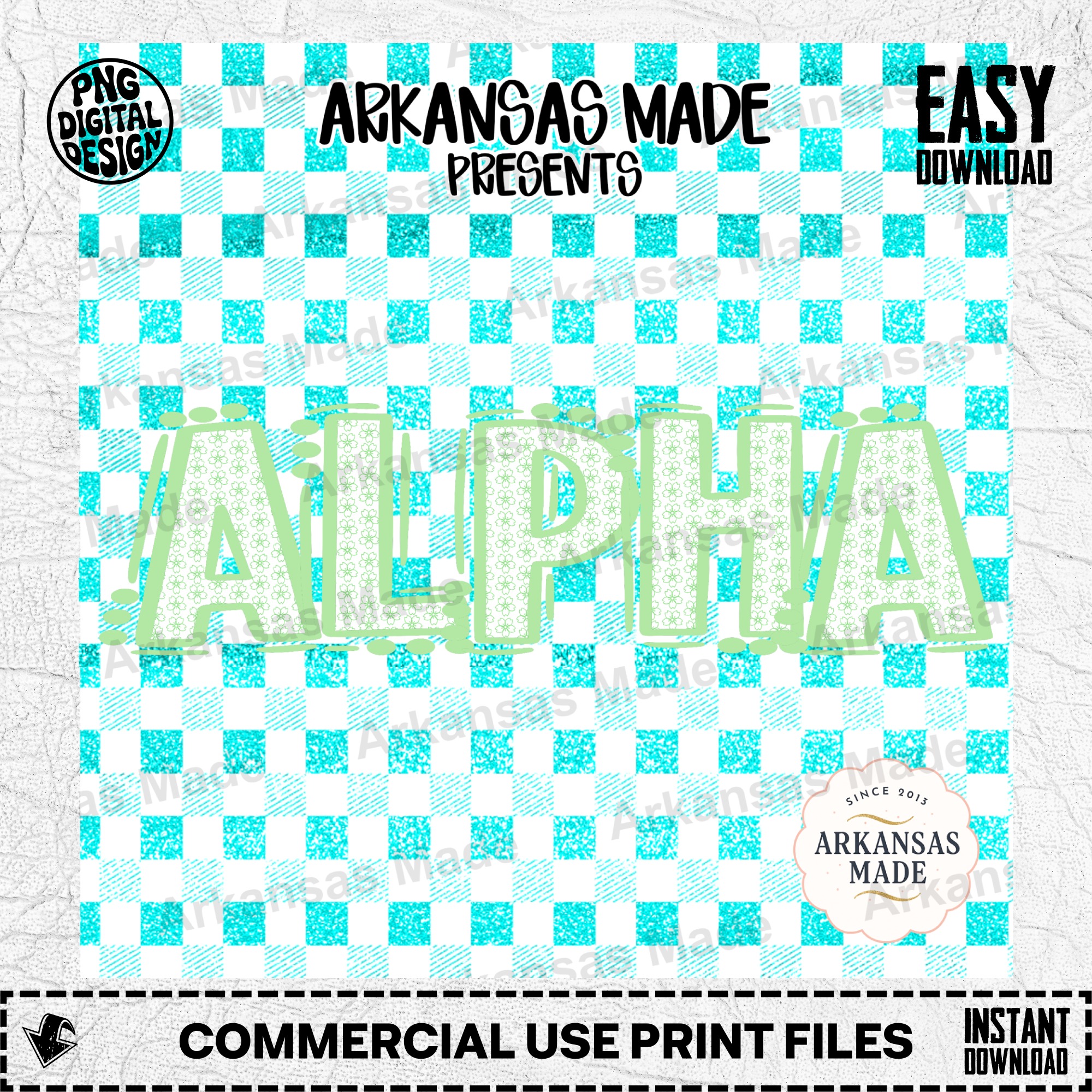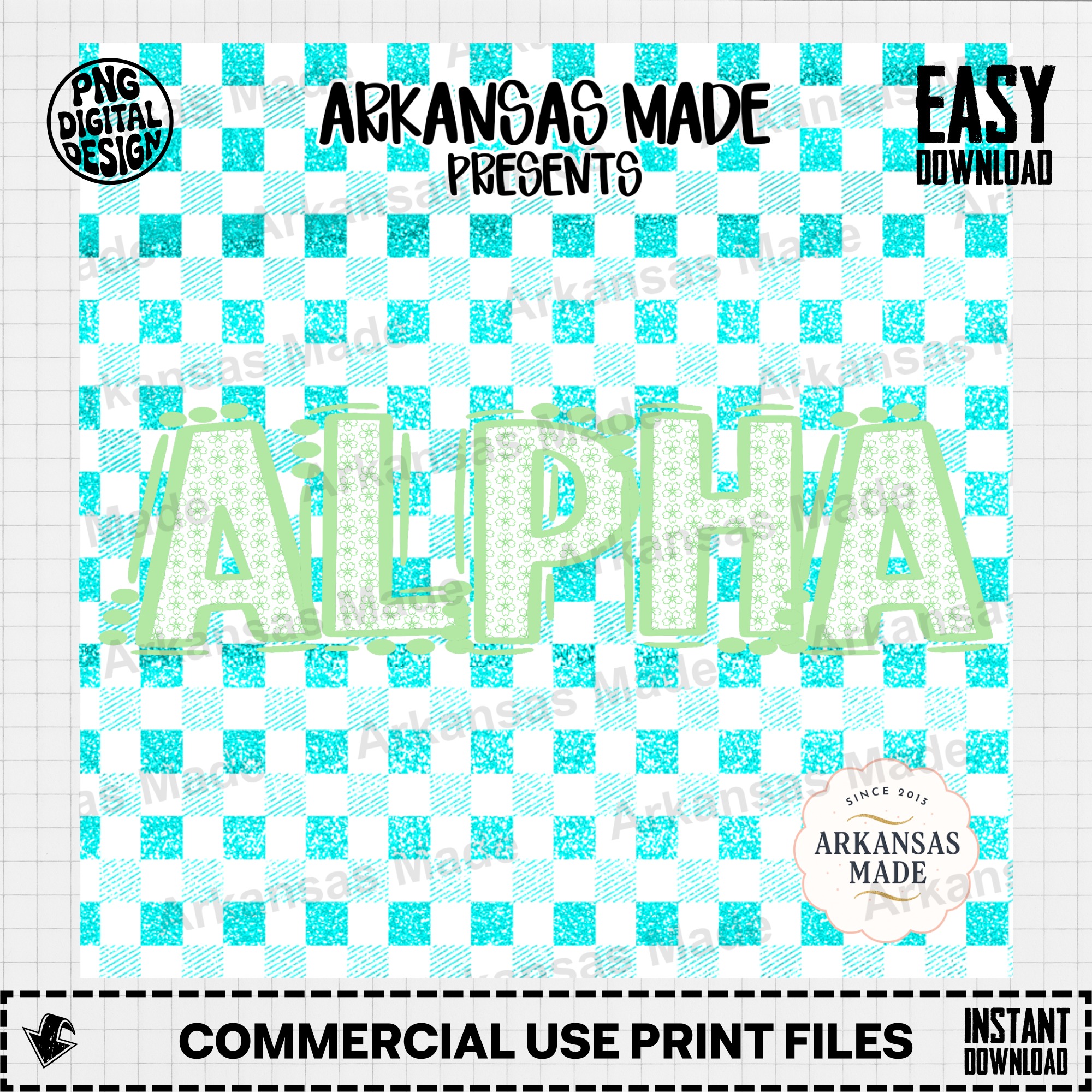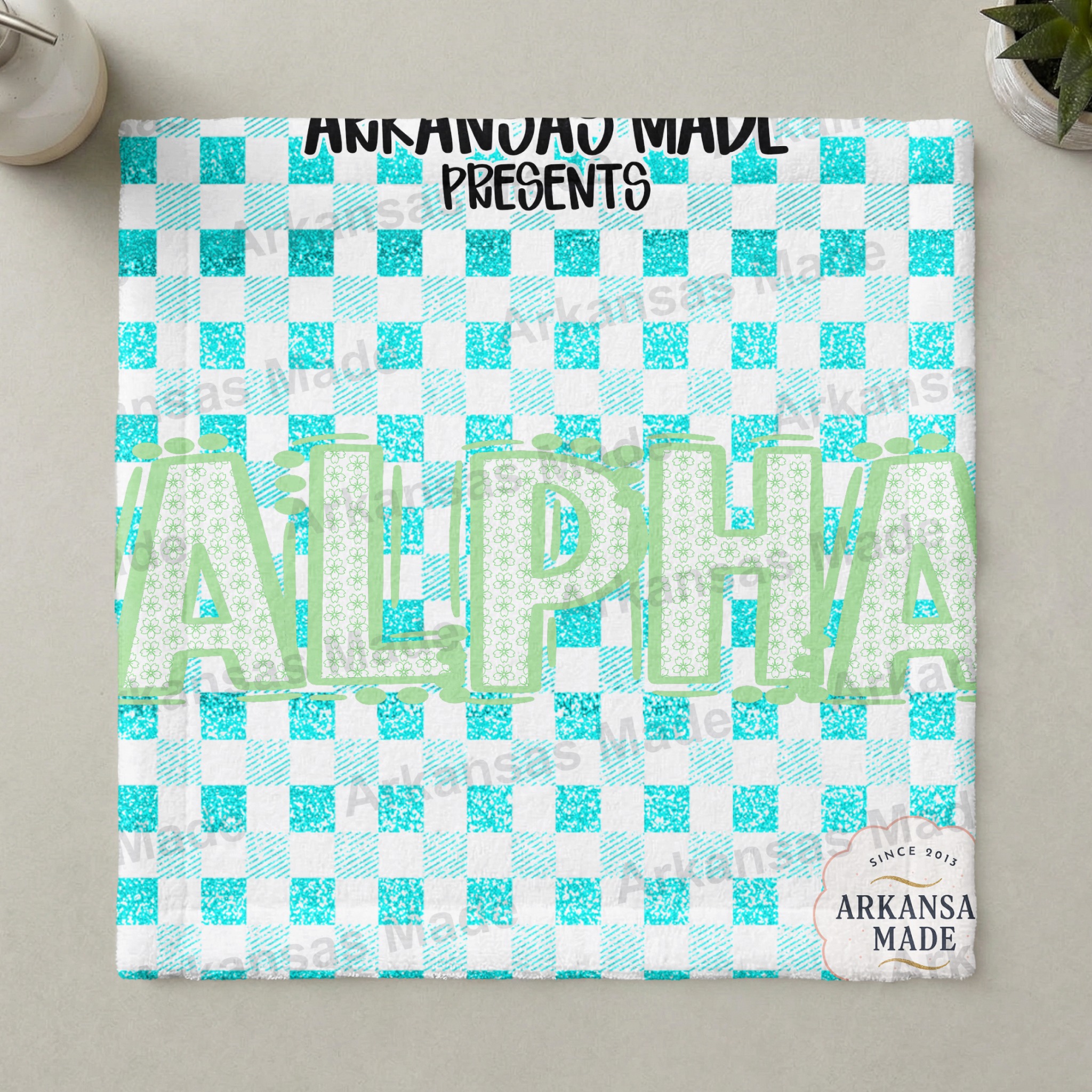
Floral Alpha Digital Download Set, Aqua Faux Glitter Gingham Letters, Preppy Cherry Blossom Font PNG, Sublimation Design, Girl Crafts
Elevate your designs with this charming Floral Alpha Digital Download Set, featuring elegant cherry blossom letters on a vibrant aqua faux glitter gingham background. Perfect for crafters and designers, this preppy sparkle font is ideal for sublimation, personalized gifts, nursery decor, and sorority crafts. Its fresh, girly vibe makes it a versatile asset for spring projects, baby showers, or birthday creations, adding a touch of feminine charm to any piece.